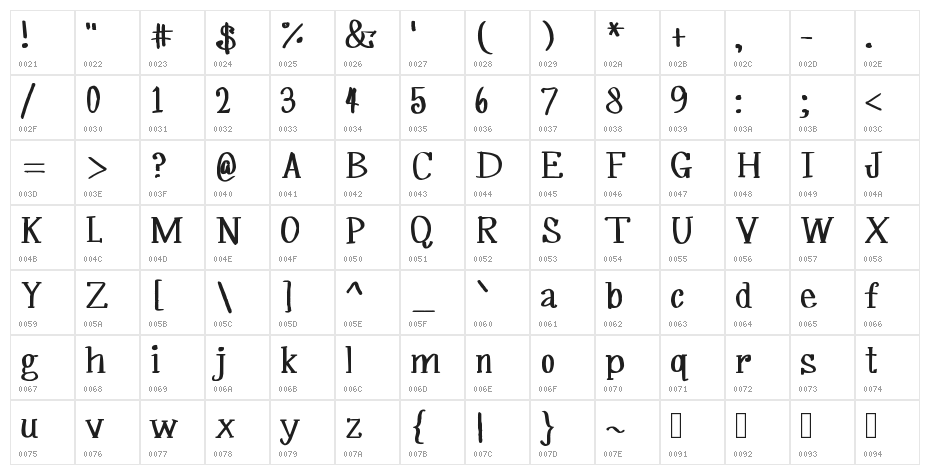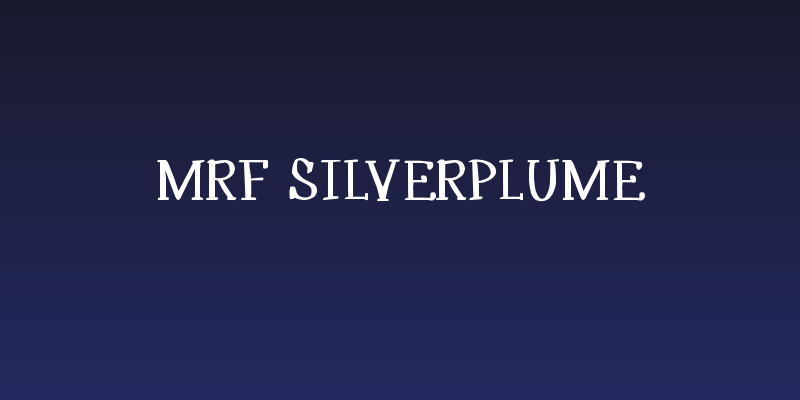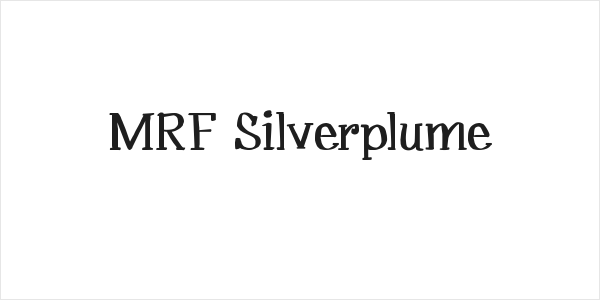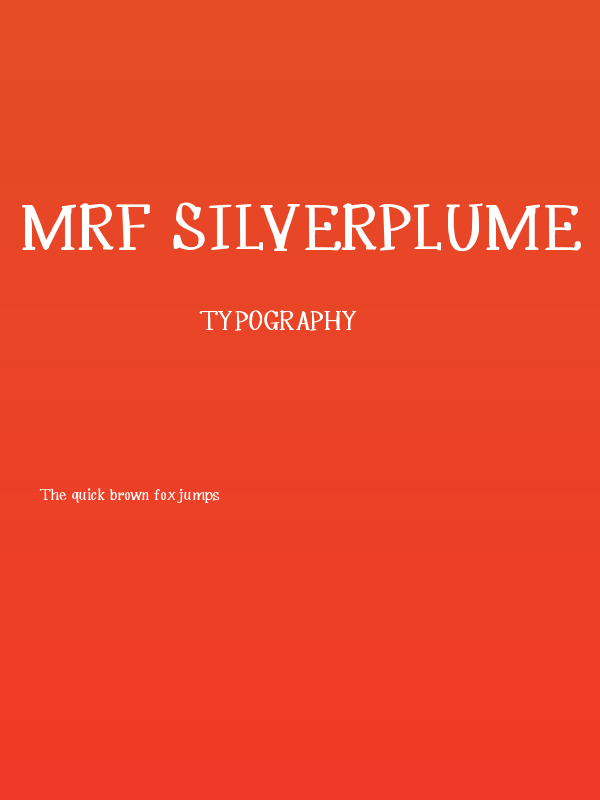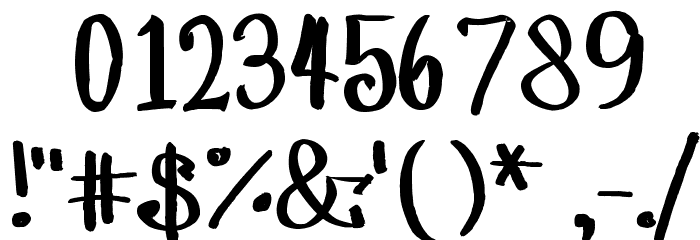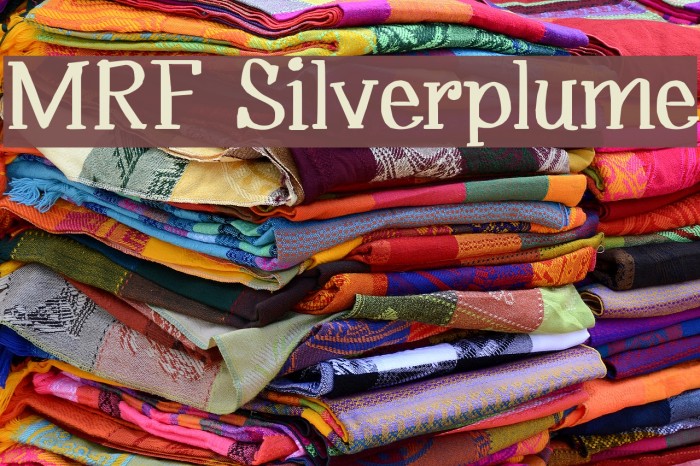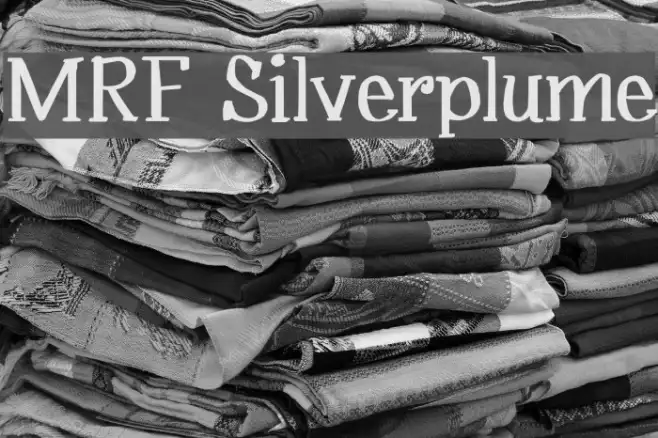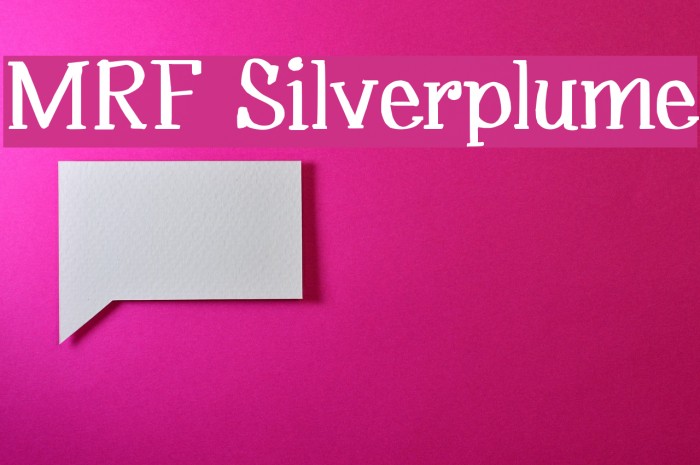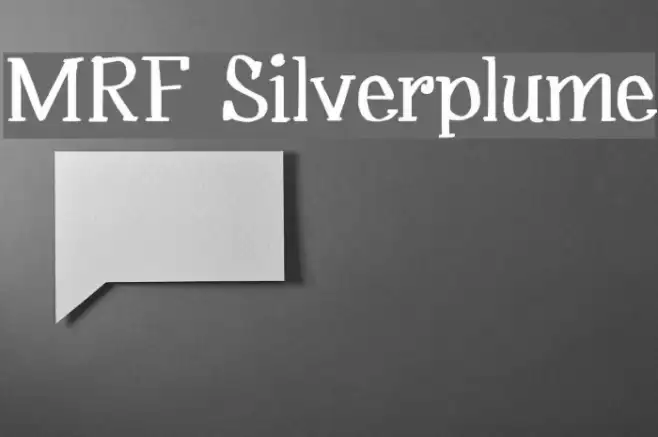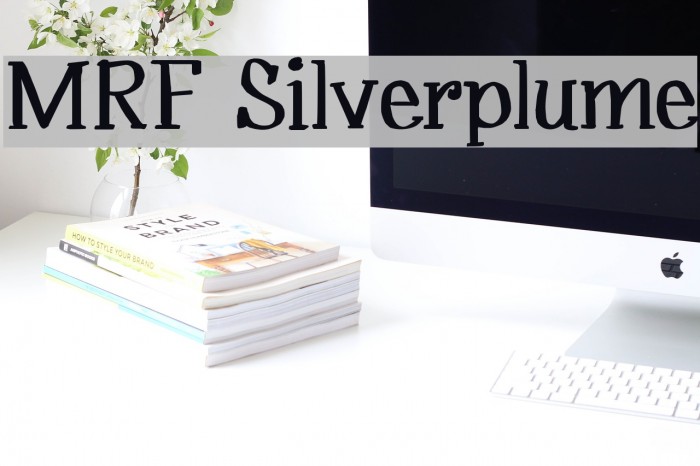
MRF Silverplume Font
MRF Silverplume Description
This font exhibits a playful and whimsical style, characterized by its uneven strokes and hand-drawn appearance. The uppercase letters are bold and slightly irregular, giving them a unique charm. The lowercase letters maintain a consistent style with a slightly exaggerated curvature, adding to the font's quirky personality. Numbers and special characters follow the same playful design, ensuring a cohesive look across all elements. The overall aesthetic is reminiscent of a handcrafted or artistic script, making it suitable for creative and informal applications.
| Proposed Projects | Ideal for children's books, creative posters, greeting cards, and playful branding projects. |